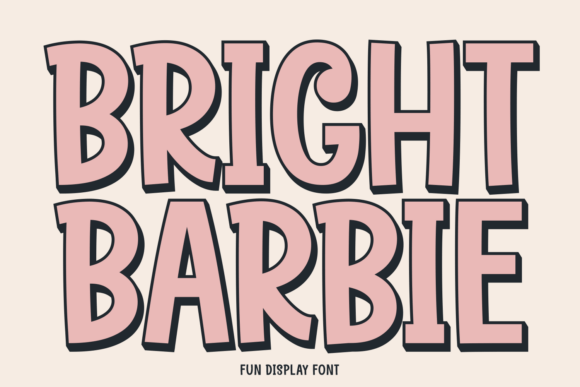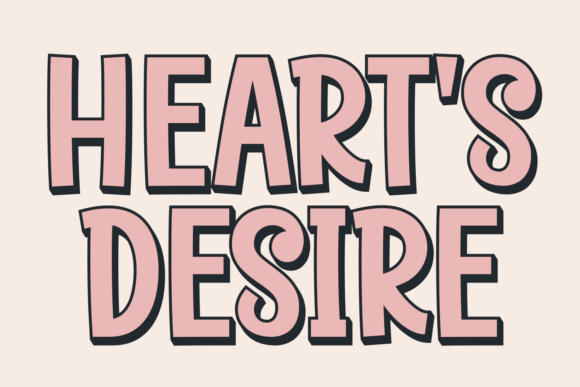
Bright Barbie Font
Unleash your creativity with the alluring Bright Barbie Font. This unique ligature font is not only eye-catching but also radiates a whimsical, playful vibe that’s perfect for kids, vacations, and festive occasions. Its single line modern appeal perfectly captures the essence of holiday joy, making it an excellent choice for school or children related projects.